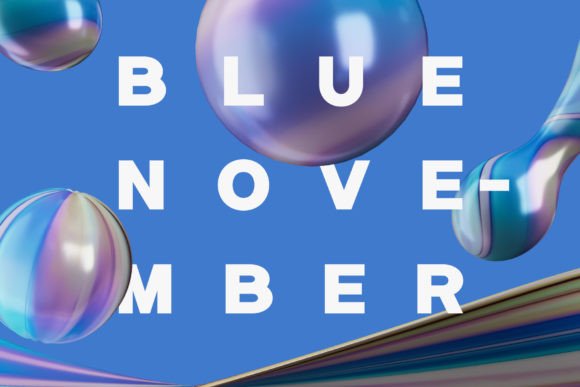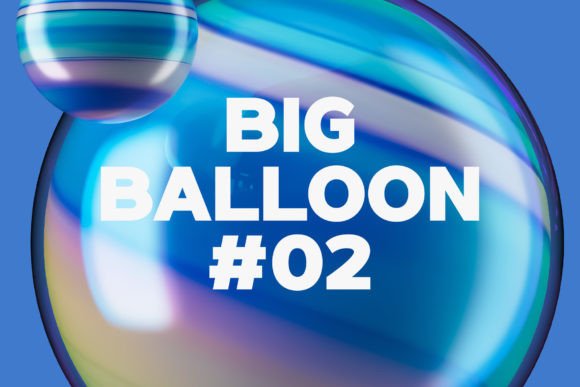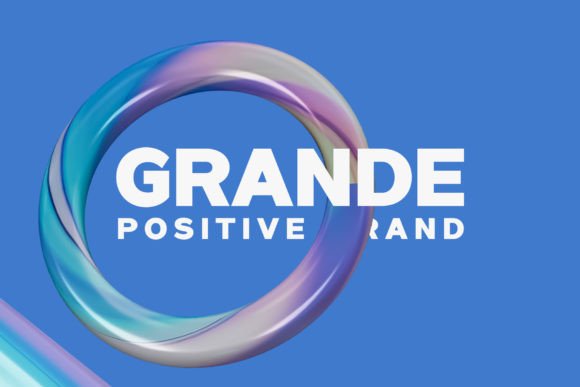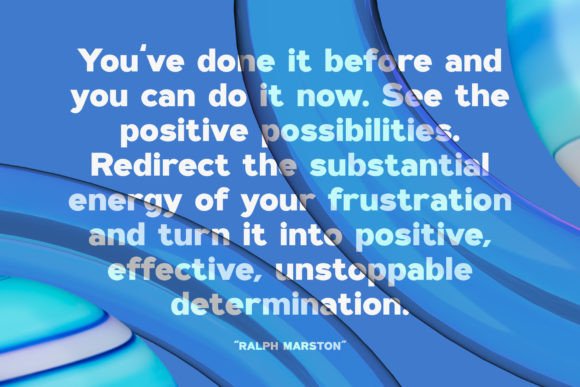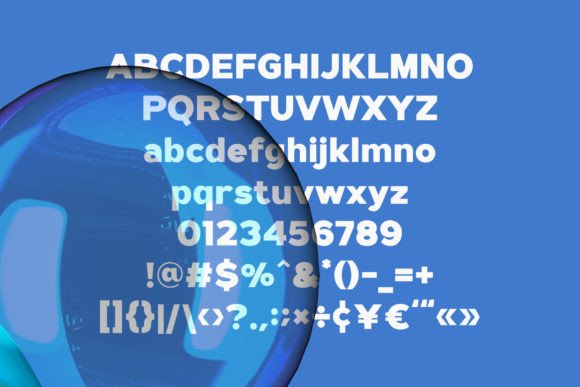
Introduction to Merich Font
Merich is a modern sans-serif font with a clean and minimalist design.
Its simple letterforms and uniform strokes make it easy to read, while its slightly rounded edges give it a friendly and approachable feel Merich is perfect for designs that require a contemporary and professional look, such as branding, advertising, and digital media.
Key Features of Merich Font